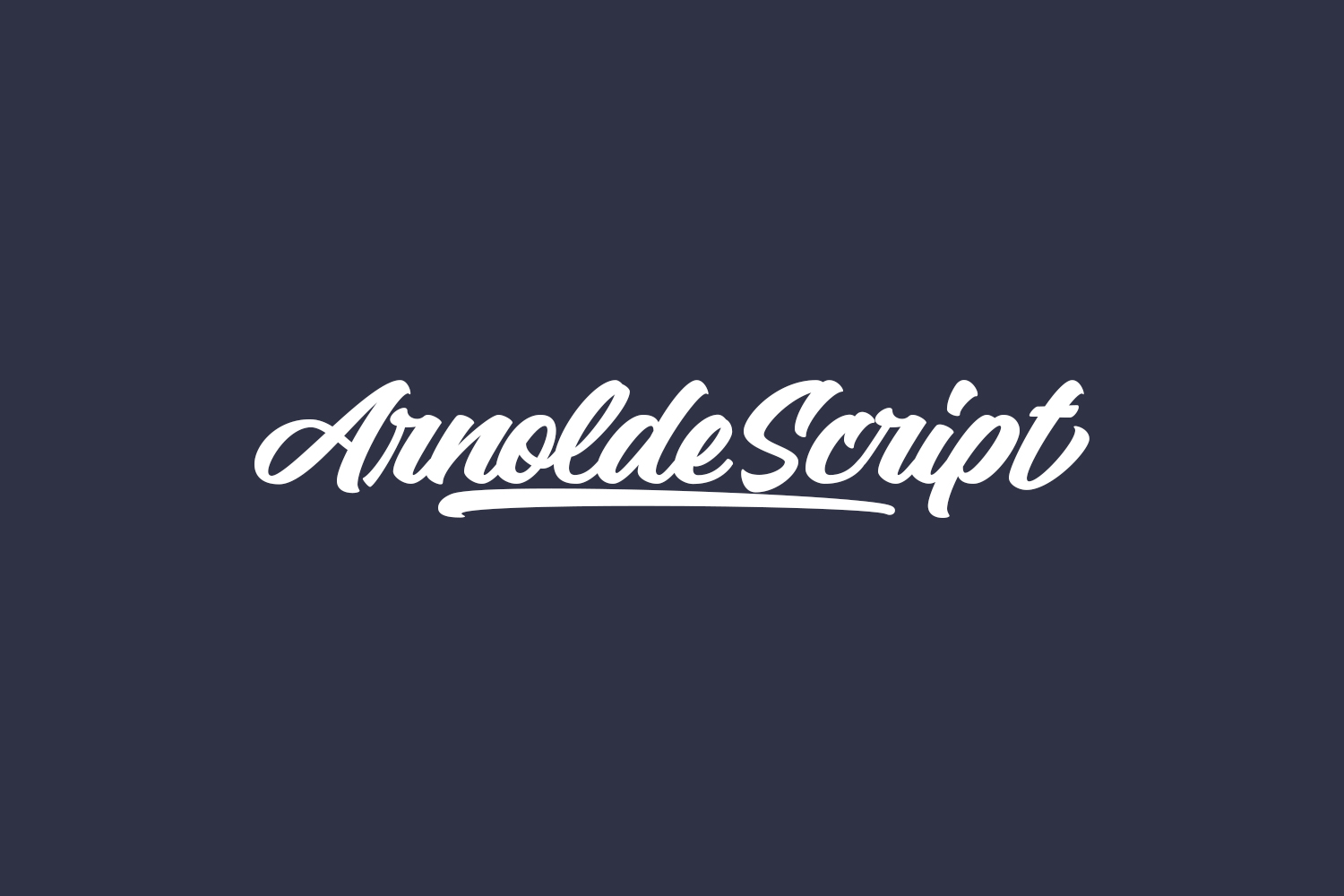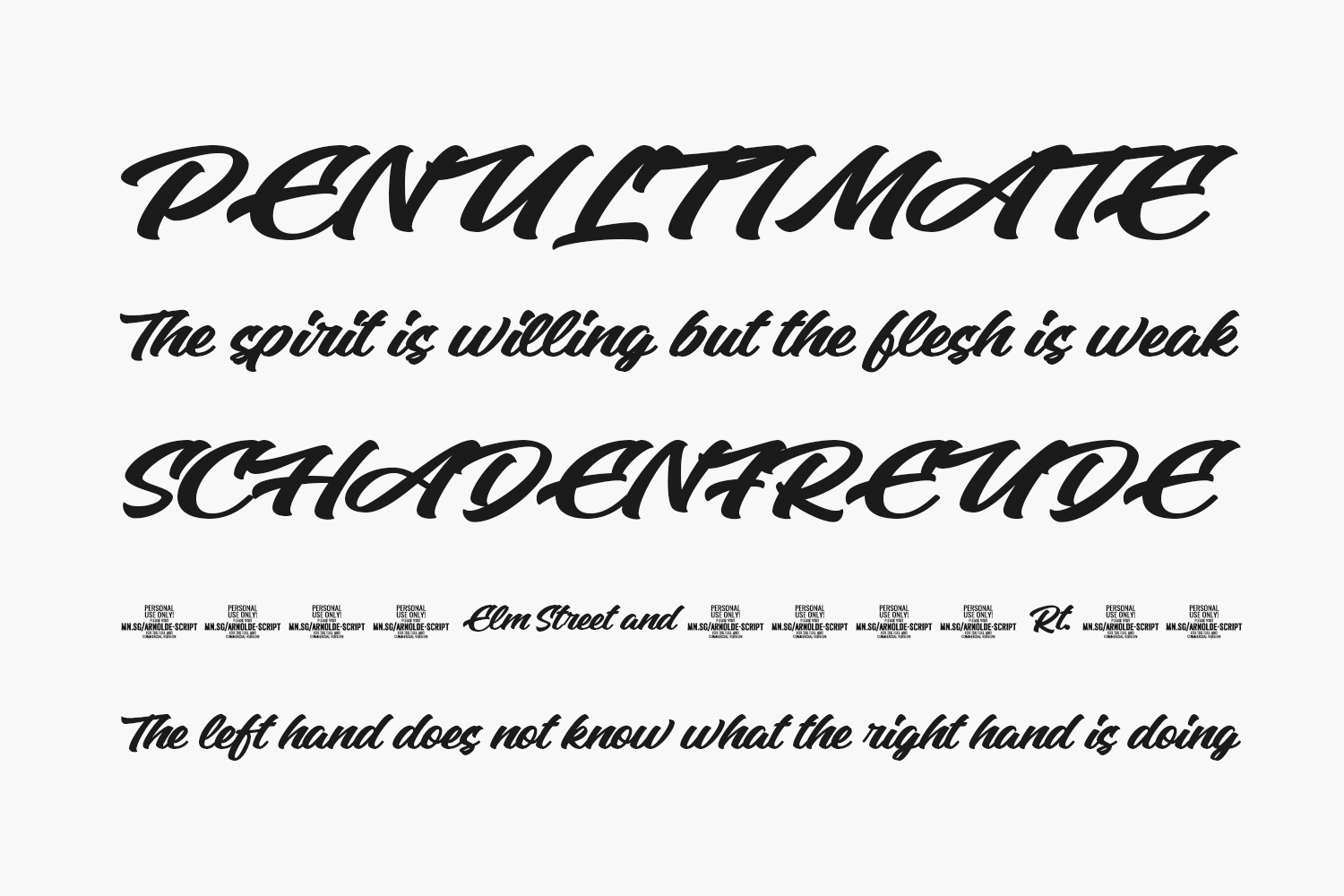
Looking for a beautiful and unique font to elevate your design projects? Look no further than Arnolde Script Free Font! This elegant and versatile font features a handcrafted script style, perfect for adding a touch of sophistication and personality to any project.
With its flowing curves and stylish flourishes, Arnolde Script is the perfect choice for branding, logos, invitations, social media graphics, and more. Its easy-to-read design makes it accessible to audiences of all ages, while its customizable features allow designers to showcase their creativity and unique style. Arnolde Script Font is a demo and free for personal use only. Please purchase the full version for commercial use.